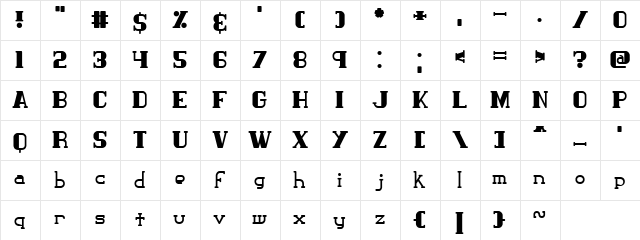
Classic Trash 1 (BRK) Regular
Design Context for Classic Trash 1 (BRK) Typeface
Classic Trash 1 (BRK) wears its vintage influences proudly, with letterforms that recall mid-century signage, classic packaging, and nostalgia-driven design.
Font Pairing: Combine Classic Trash 1 (BRK) with a simple slab or neutral sans — period-accurate companions reinforce the vintage feel without competing for attention.
Pro Tip: Use Classic Trash 1 (BRK) for headlines and pull quotes rather than body copy — its personality is best appreciated in short, focused bursts.